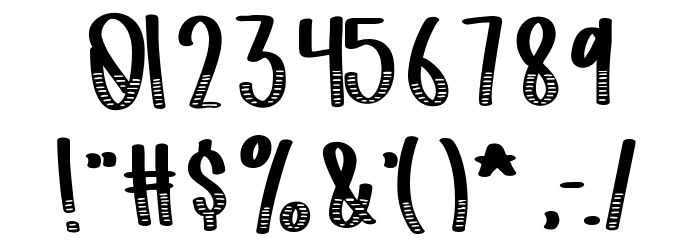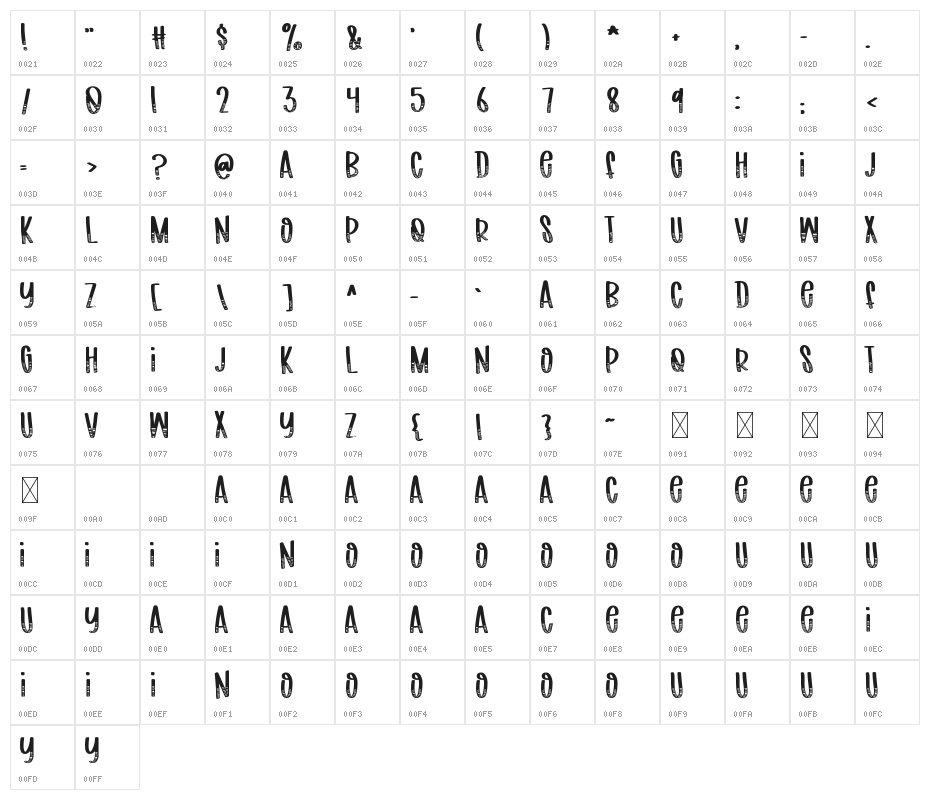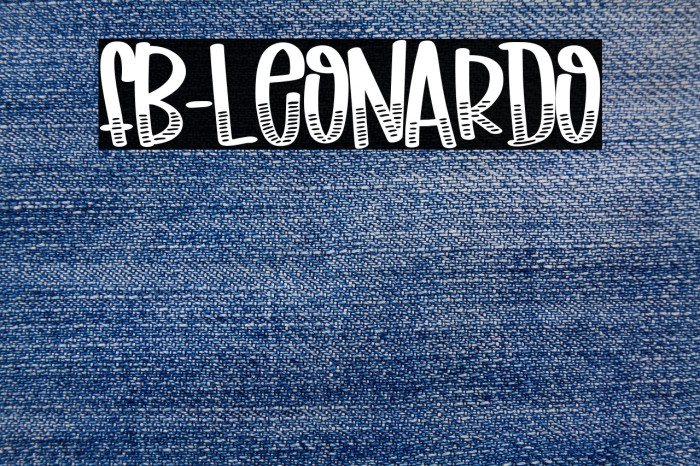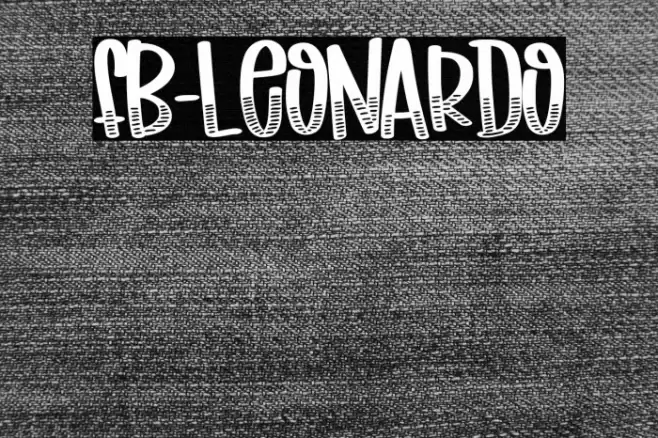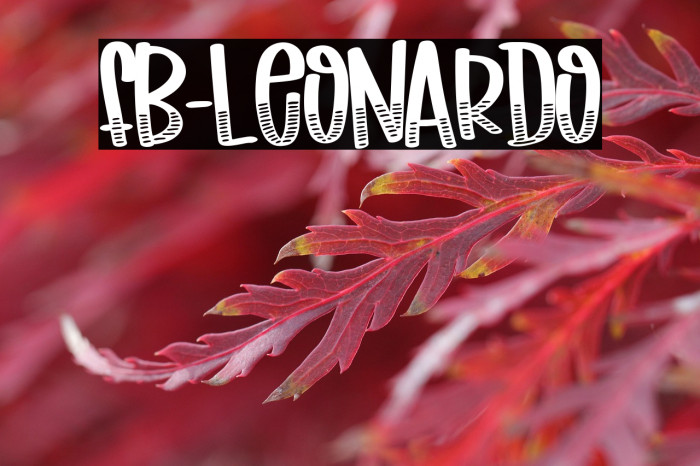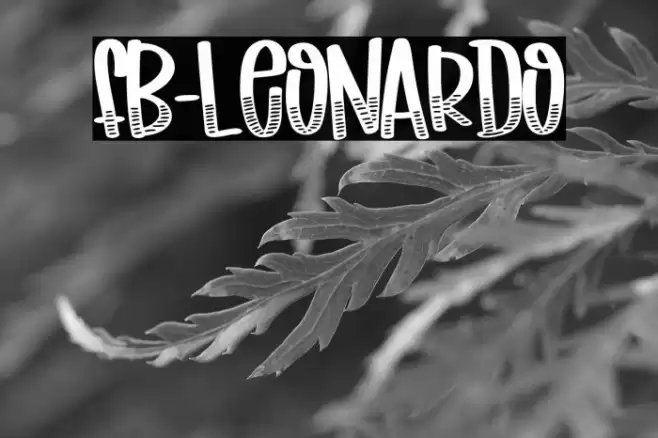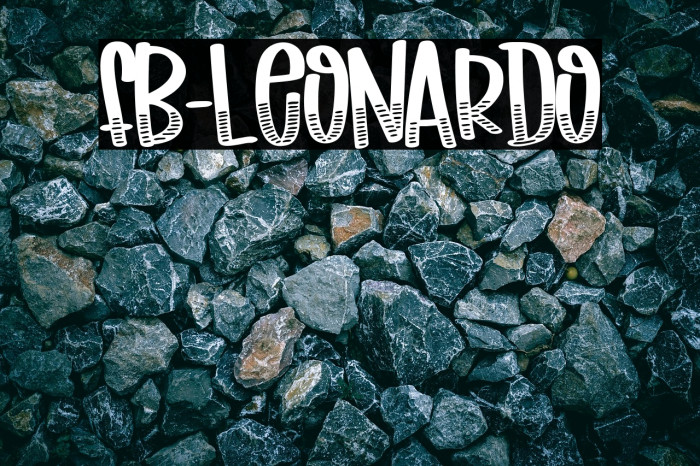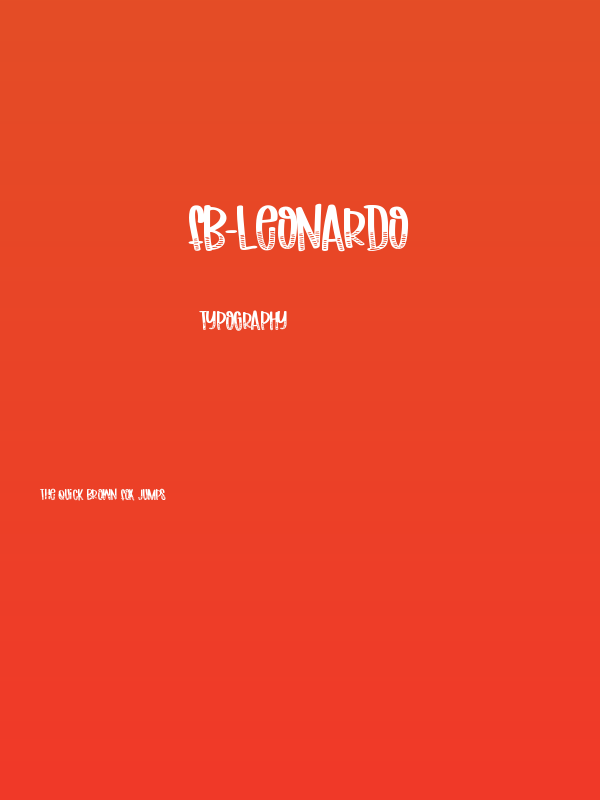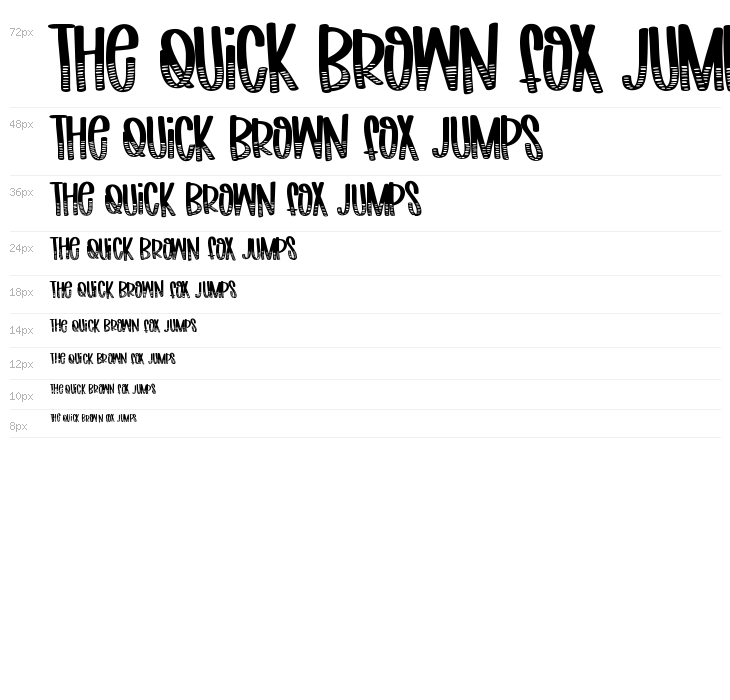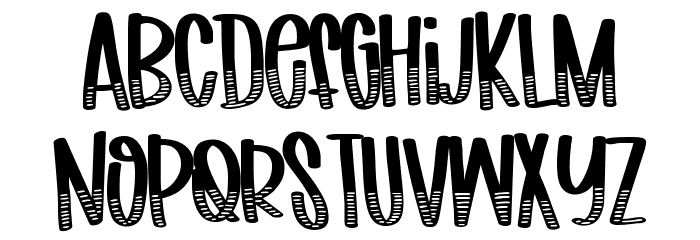
FB-Leonardo Font
FB-Leonardo Description
This font features a playful and bold design with a hand-drawn aesthetic. The letters are characterized by thick strokes and a striped pattern within each character, giving it a unique and whimsical appearance. The uppercase and lowercase letters maintain a consistent style, with rounded edges and a slightly irregular form that adds to its charm. The numbers and special characters follow the same design principles, ensuring a cohesive look across all elements. This font is perfect for projects that require a fun and engaging visual style.
Overall StylePlayful, Whimsical
Proposed ProjectsIdeal for children's books, playful branding, posters, and creative invitations.